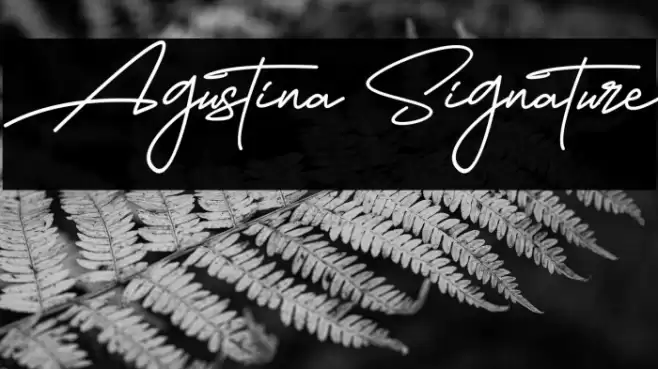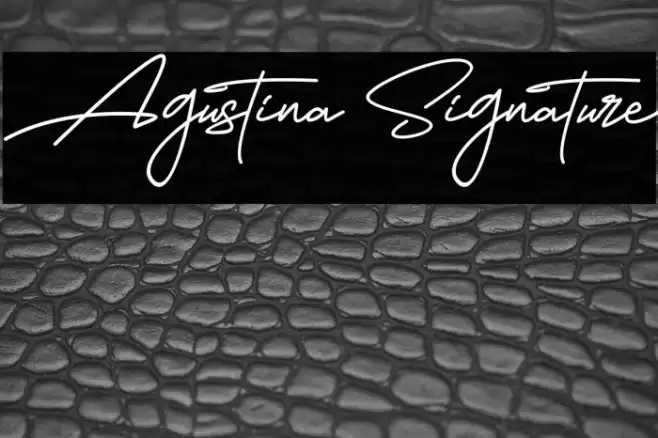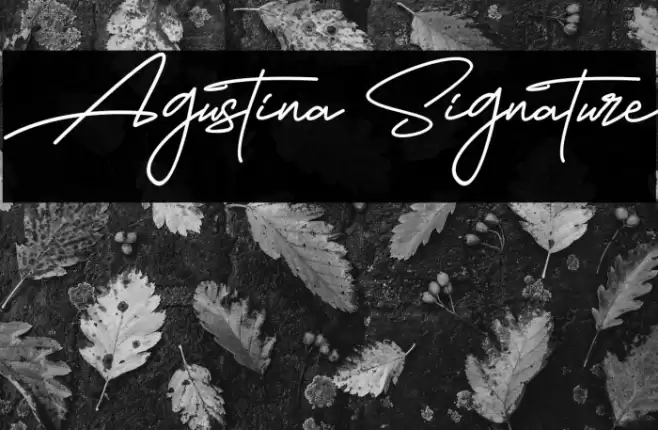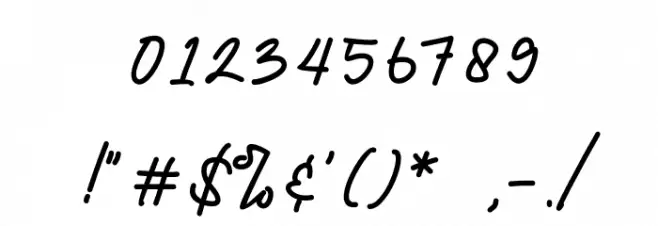
Agustina Signature Font
Agustina Signature Description
This font exudes a personal and artistic flair, characterized by its flowing, cursive script that mimics the fluidity of a handwritten signature. The letters are interconnected with elegant loops and curves, giving it a sophisticated and stylish appearance. The uppercase letters are slightly larger and more pronounced, while the lowercase letters maintain a consistent flow, enhancing readability. The numerals and special characters are crafted with the same attention to detail, ensuring a cohesive look across all characters. This font is perfect for adding a touch of elegance and personality to any project.
A flowing, cursive script font with an elegant, handwritten style from Uncategorized fonts.
- Proposed Projects: Ideal for wedding invitations, personal branding, signature logos, and elegant stationery.
- Overall Style: Elegant, Handwritten
- Use Case: Logos, Invitations, Personal Branding